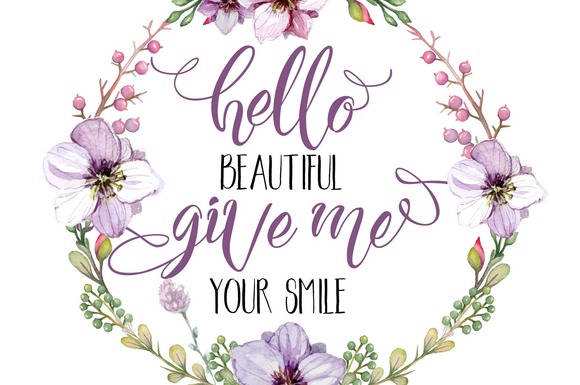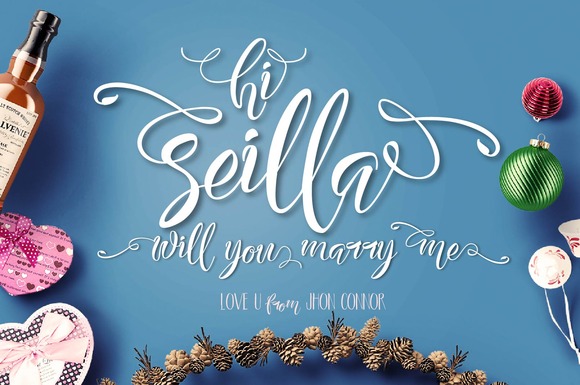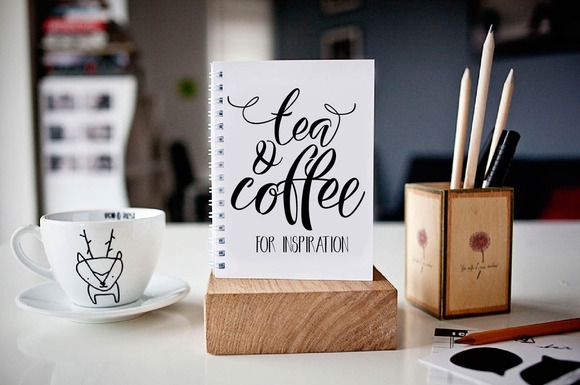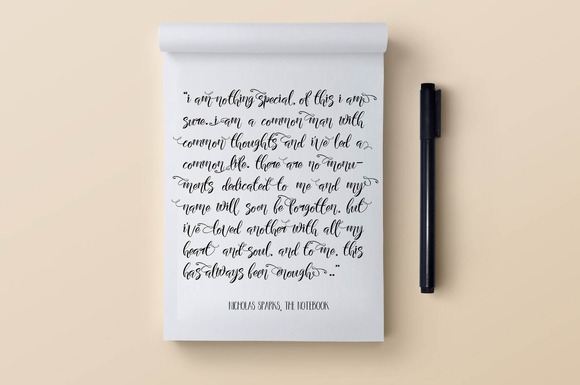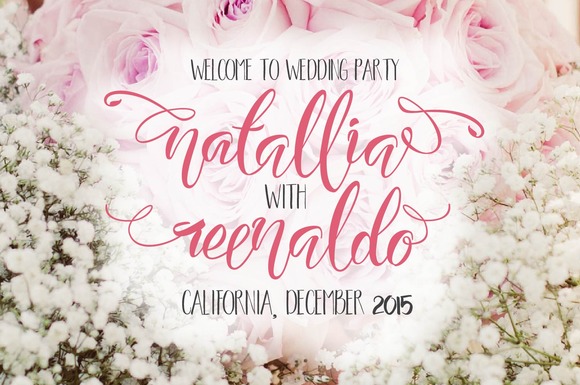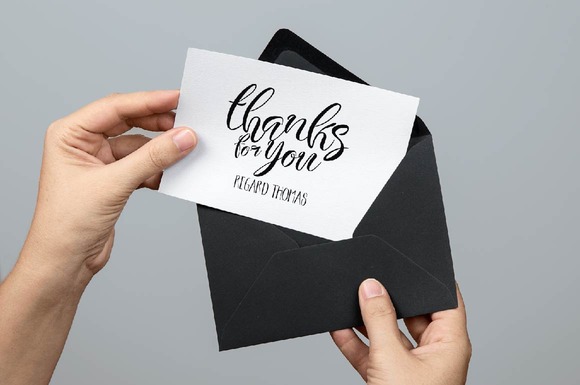
Seilla Script Font
About Seilla Script Font
Seilla is a modern Lettering typeface and can be used for various purposes such as: invitations, watercolor based designs and any other design that you want to give a modern feeling.